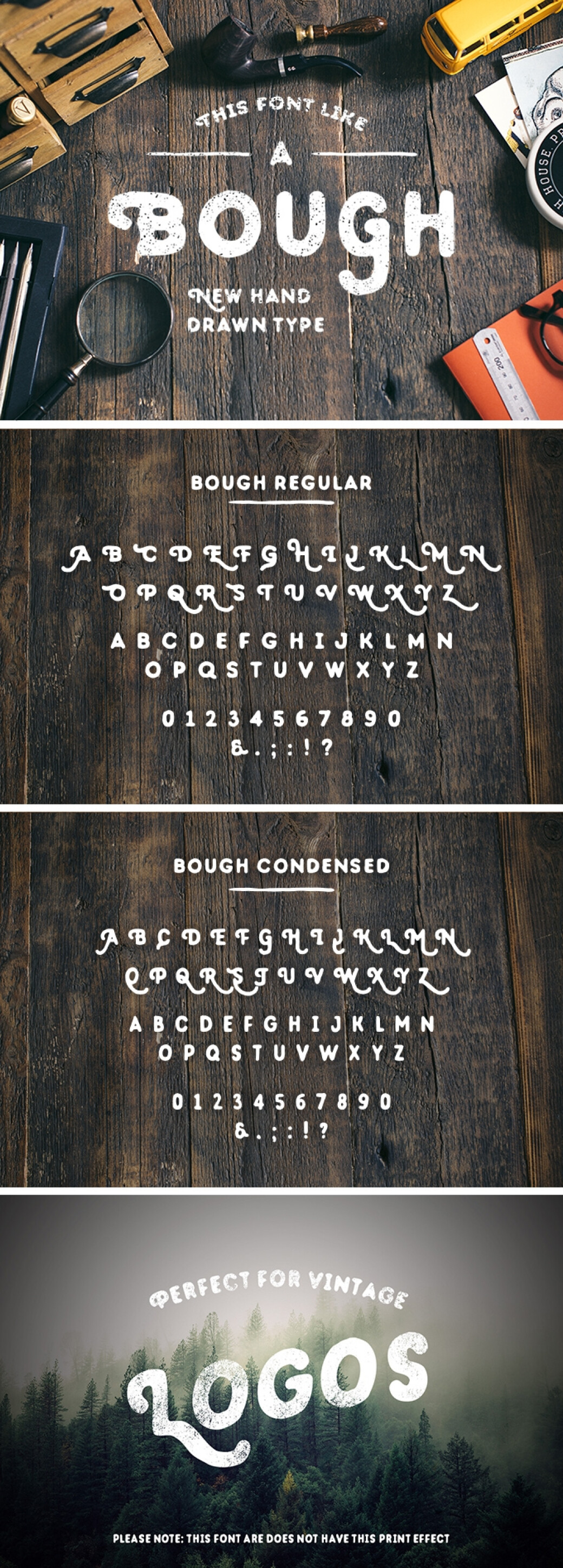
Bough Hand-Drawn Typeface
Take a look at Bough hand-drawn typeface featuring vintage aesthetics in every single piece. Its worn retro letters give a feeling of a soft sentimentality, breathing through the font.
The font goes in two characters: regular and condensed. Each letter has an alternate glyph and some of them come in both characters so that you can combine them to get an elegant vintage look. Surrender to the romanticism of this typeface and let it find its place in your creative longings!